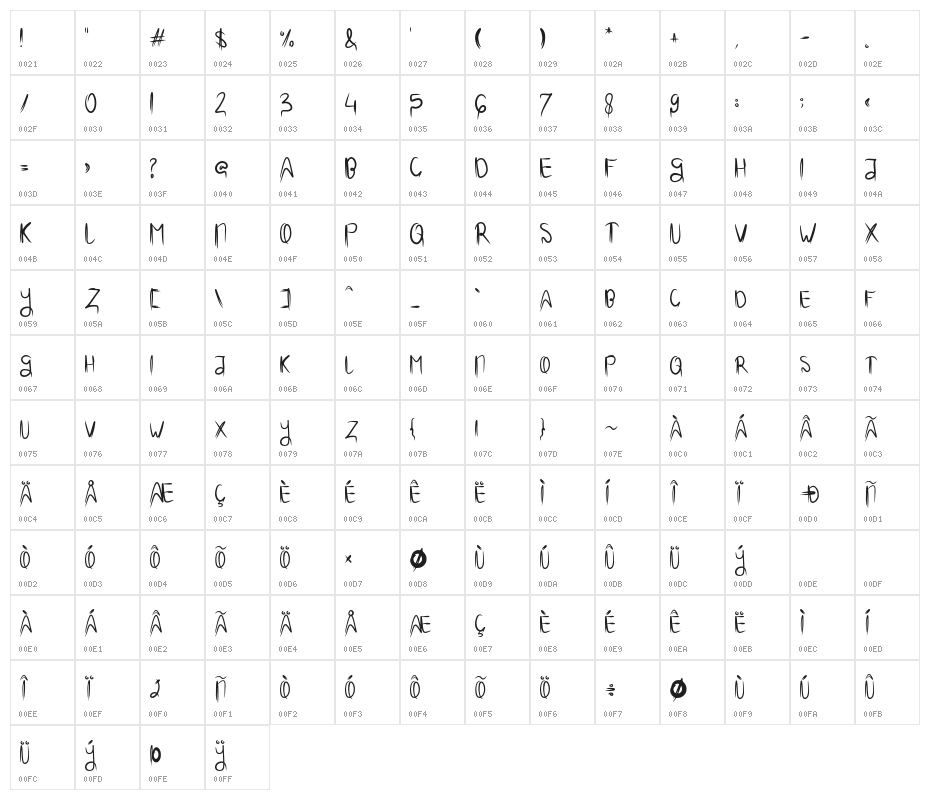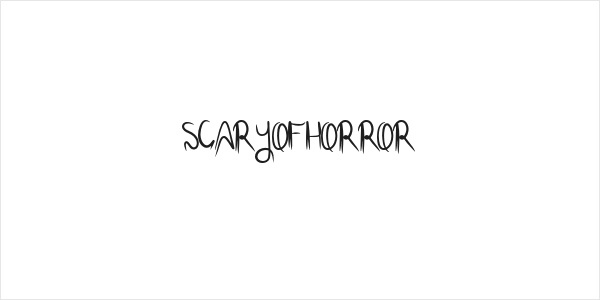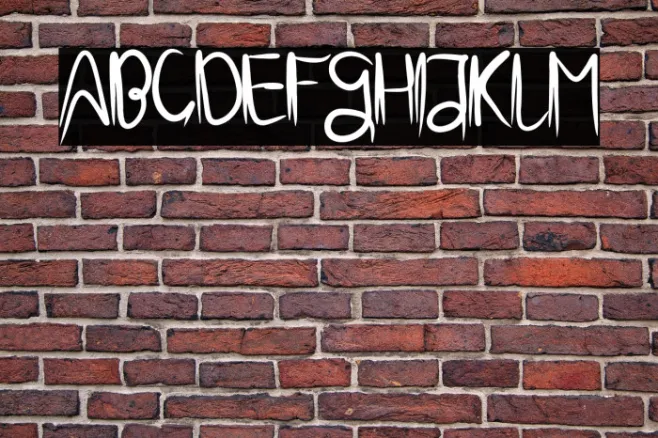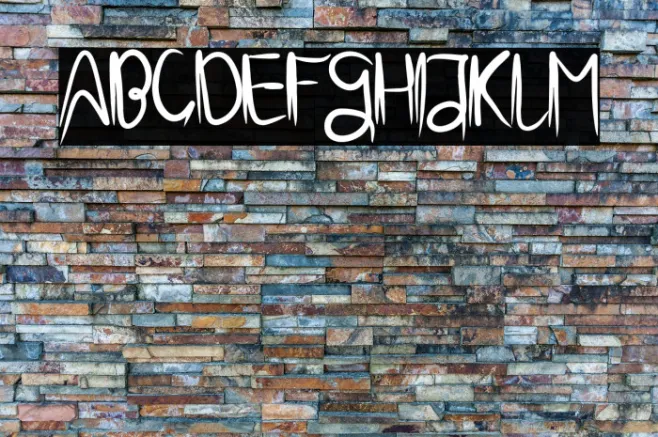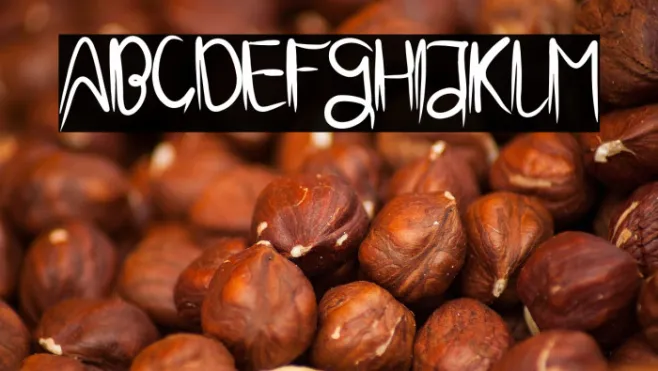
SCARYOFHORROR Font
SCARYOFHORROR Description
This font exudes a chilling and eerie vibe, perfect for horror-themed projects. The letters are elongated and jagged, resembling sharp claws or dripping ink, which enhances its unsettling appearance. The uppercase and lowercase letters maintain a consistent style, with exaggerated curves and pointed ends. Numbers and special characters follow the same design principles, ensuring a cohesive look across all text elements. The font's unique style makes it ideal for creating a sense of suspense and fear, making it a great choice for Halloween events, horror movie posters, or spooky invitations.
| Proposed Projects | Ideal for horror movie posters, Halloween invitations, and spooky event branding. |